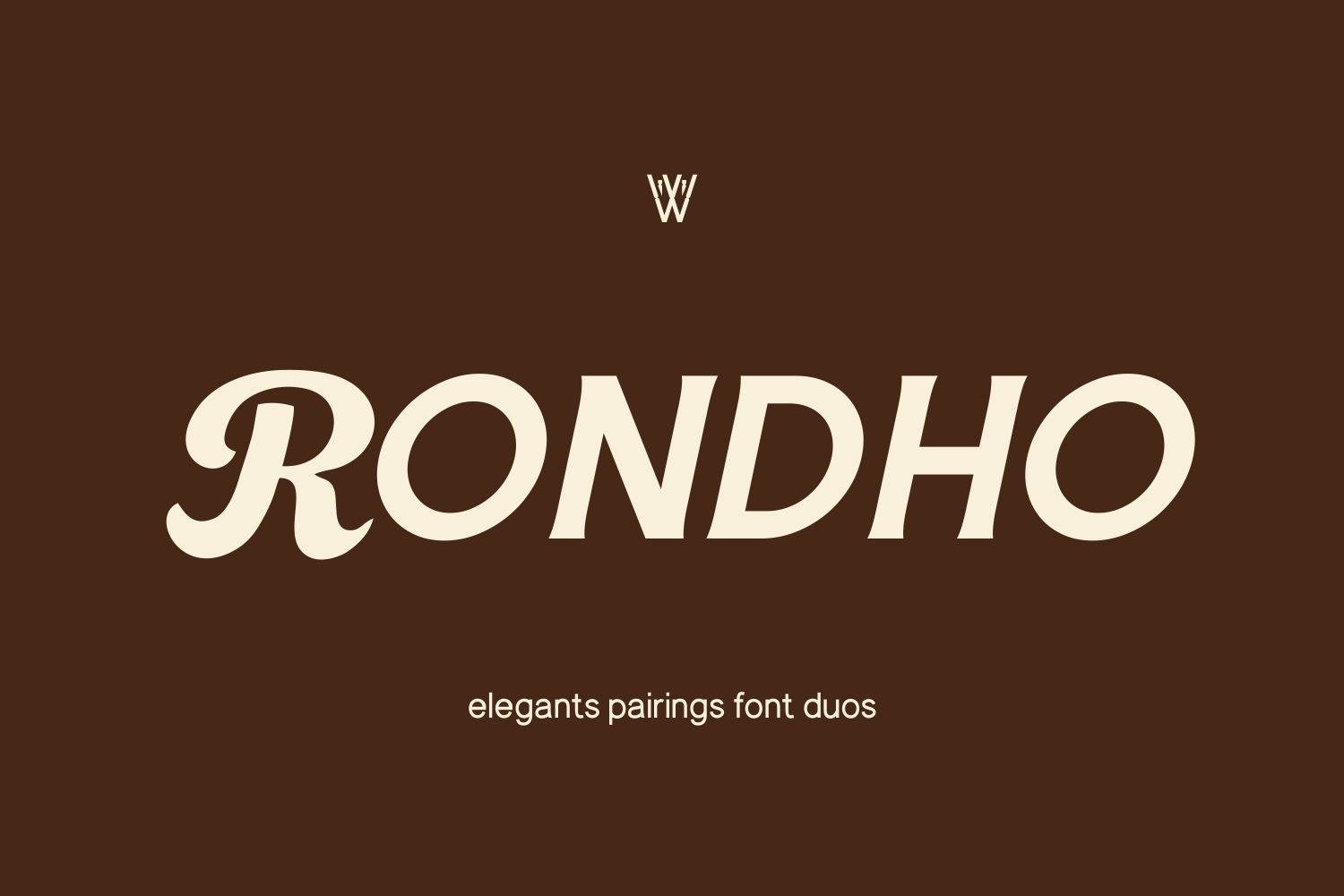
Rondho Luxury Retro Font Duo Sans & Script
Rondho is a luxury retro font duo that combines a bold vintage sans with a smooth classic script, creating an elegant yet nostalgic typographic harmony.
Inspired by retro café signage, vintage packaging, and classic advertising typography, Rondho brings warmth, character, and stylish personality to your designs. The strong sans serif provides a solid foundation, while the flowing script adds a handcrafted touch that makes your branding feel authentic and memorable.
This font duo is designed to work beautifully together, making it effortless to create eye-catching logos, café branding, vintage labels, and social media designs.
Whether you are designing for coffee brands, restaurants, lifestyle brands, or retro-themed projects, Rondho gives your typography a timeless and charming look.
• Script Font
• Sans Serif Font
• Smooth script curves
• Strong retro sans style
• Clean kerning & spacing
• Easy font pairing
Rondho is the perfect font duo for designers who want to create bold retro branding with a modern luxury feel.
Rondho Script